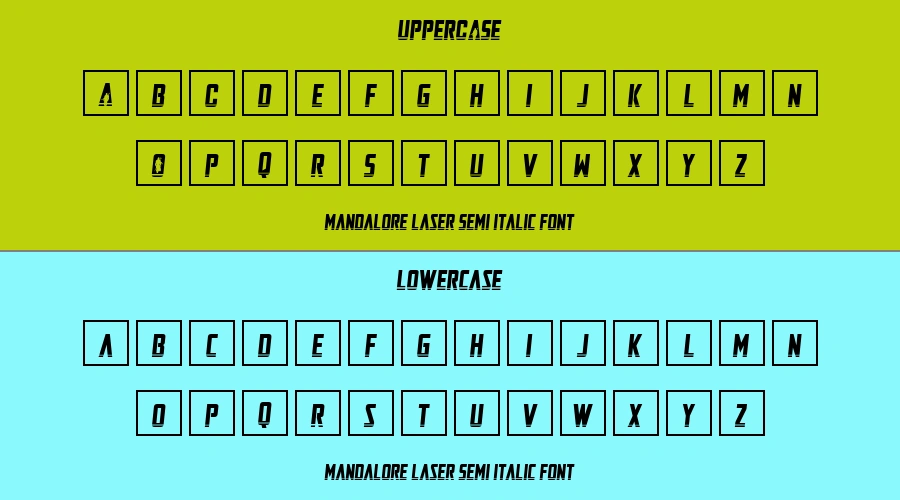
About Mandalore Laser Semi Italic Font
Mandalore Laser Semi Italic Font represents a sophisticated approach to type design, balancing open counters with design integrity. Perfect for academic publications, this font family showcases impressive personality and cultural resonance throughout its character set. Designers appreciate its versatility and reliability.
Designers will appreciate nuanced touches including contextual swashes and oldstyle figures, adding sophistication to any project. These features become apparent in instruction steps, where reproduction fidelity matters most. The careful treatment of stroke contrast and cultural references ensures optimal performance.